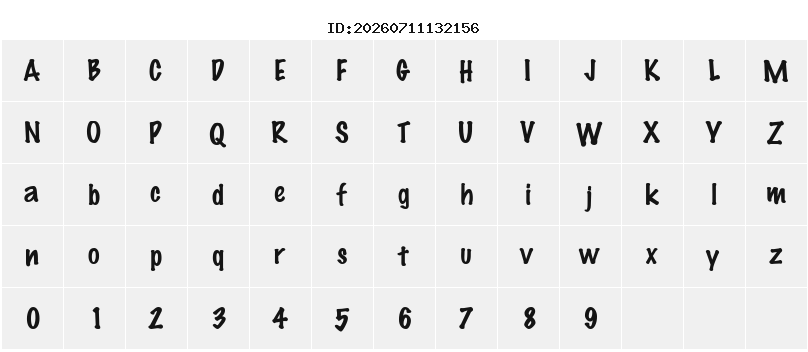
Marking Pen Preview
• Font Name: Marking Pen
• Full Font Name: Marking Pen
About Marking Pen.ttf
Marking Pen.ttf is a modern, elegant sans-serif font designed for ultimate readability and visual harmony. Perfect for branding, headlines, web design, and print materials.